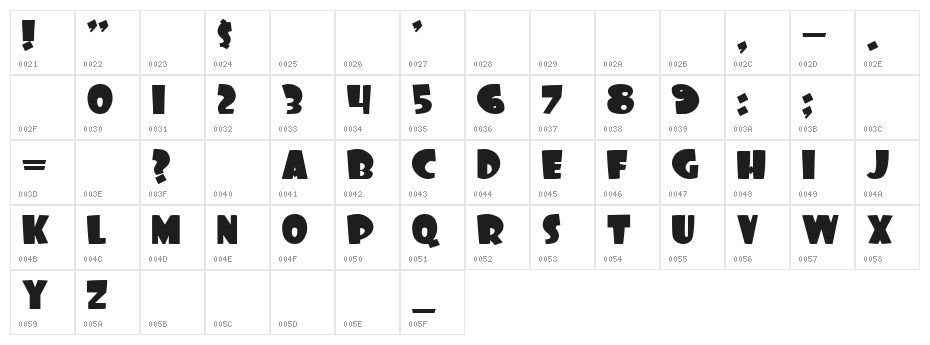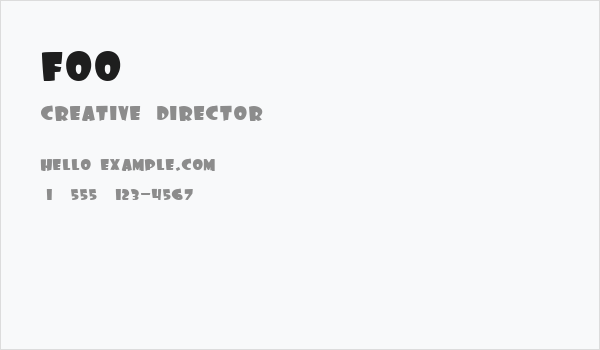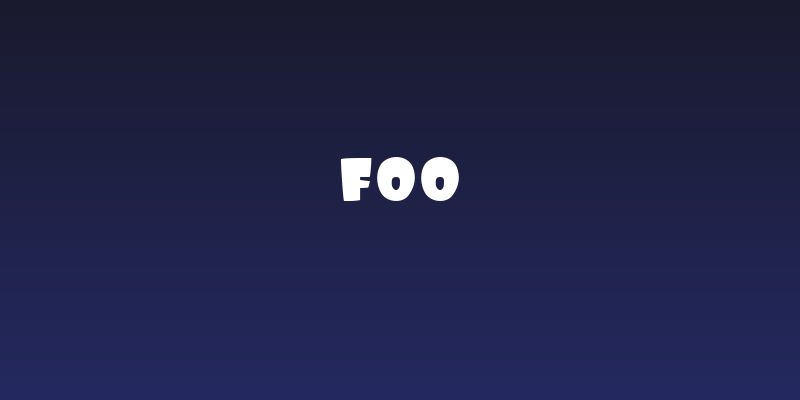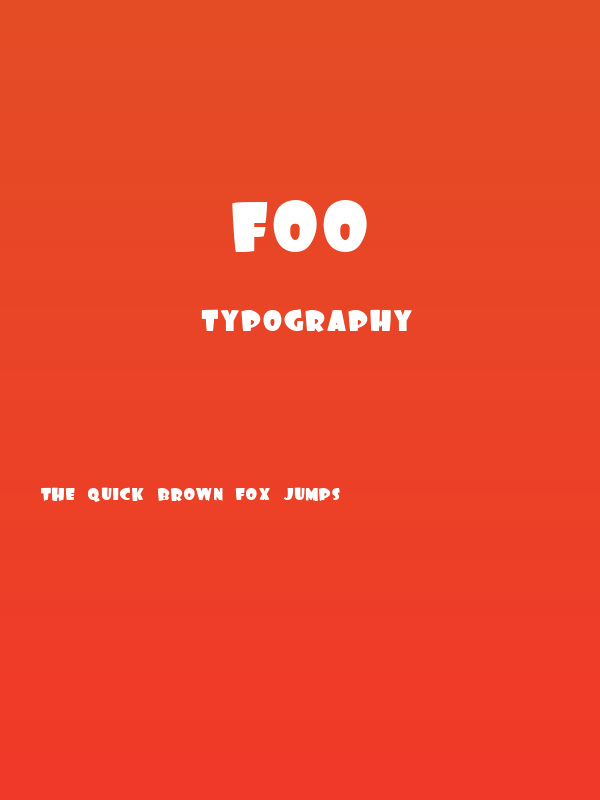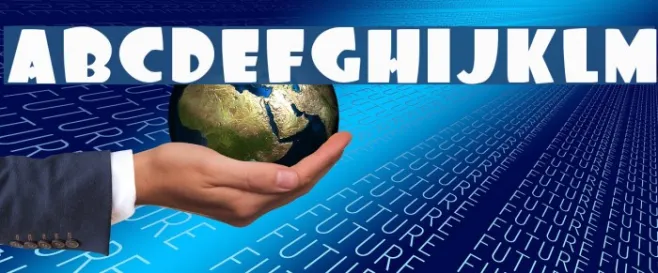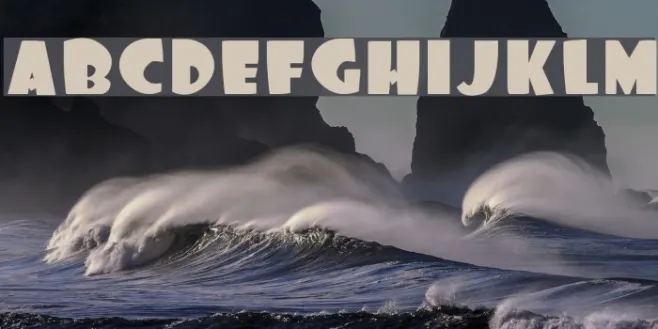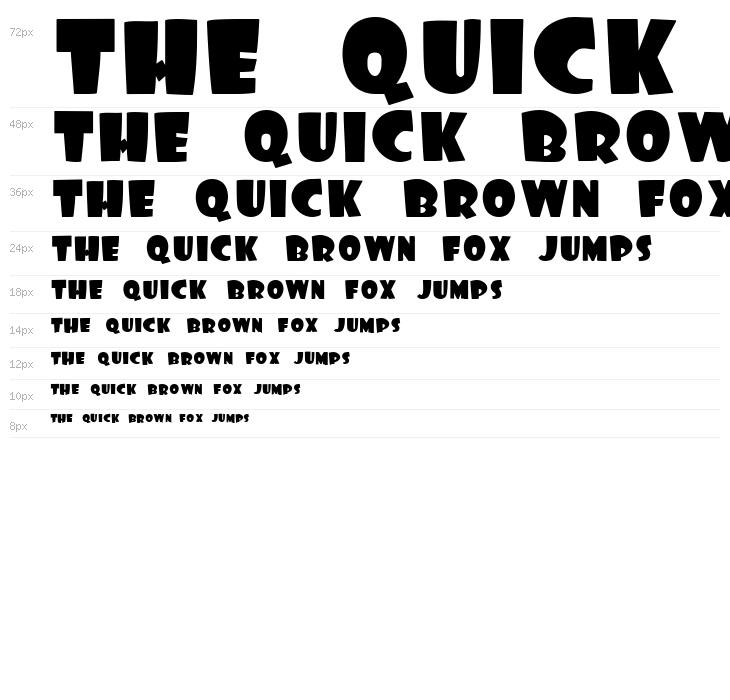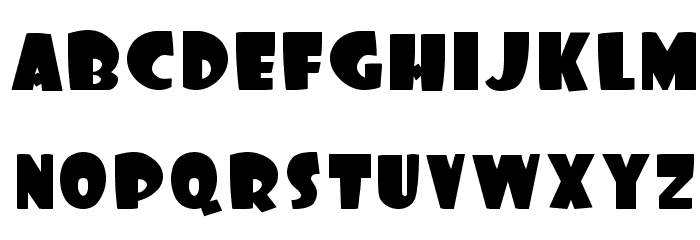
Foo Font
Foo Description
This font features bold, playful characters with a distinctively chunky and whimsical appearance. The letters are heavily stylized with exaggerated curves and angles, giving them a lively and dynamic feel. The font's design incorporates a sense of movement and energy, making it ideal for projects that require a fun and engaging visual impact. The numbers and special characters maintain the same playful style, ensuring consistency across all text elements. This font is perfect for creative projects that aim to capture attention and convey a sense of joy and excitement.
| Overall Style | Playful, Whimsical |
| Proposed Projects | Ideal for children's books, playful branding, party invitations, and eye-catching posters. |